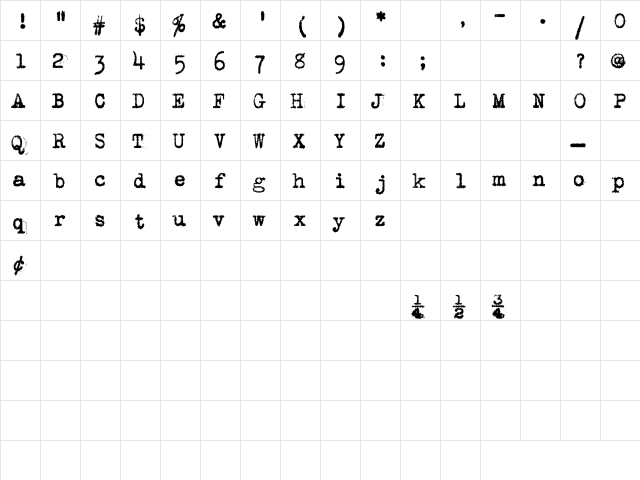
VintageTypewriter SmithUpright
Design Context for VintageTypewriter Typeface
VintageTypewriter wears its vintage influences proudly, with letterforms that recall mid-century signage, classic packaging, and nostalgia-driven design.
Perfect for vintage-inspired branding, retro packaging, nostalgia campaigns, and period-accurate editorial design.
Font Pairing: Combine VintageTypewriter with a simple slab or neutral sans — period-accurate companions reinforce the vintage feel without competing for attention.
Pro Tip: Use VintageTypewriter for headlines and pull quotes rather than body copy — its personality is best appreciated in short, focused bursts.